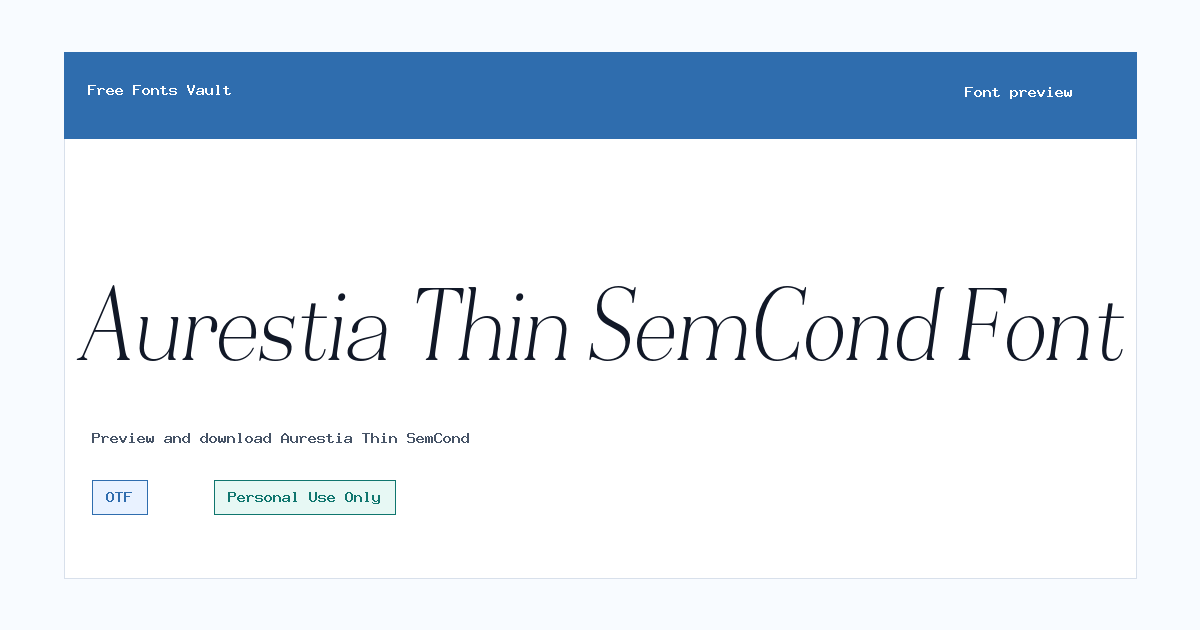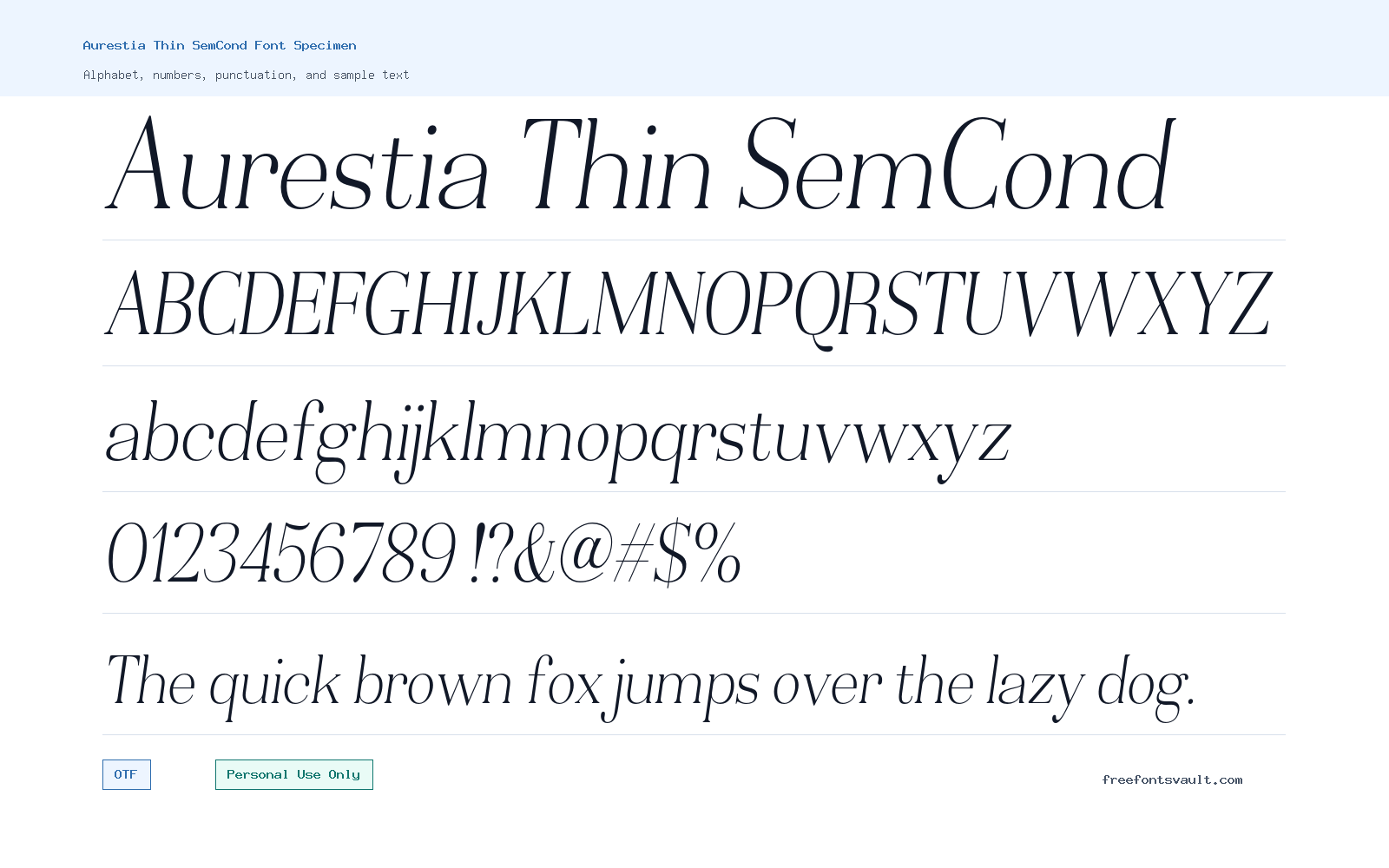
Aurestia Thin SemCond
Aurestia Thin SemCond font.
About Aurestia Thin SemCond
Aurestia Thin SemCond uses a light weight and semi-condensed proportions, giving words a tall and elegant feel without taking up too much horizontal space. The thin strokes make it better for display text than for long reading. Try it in larger sizes first, especially for names, short titles, invitation-style headings, logo drafts, packaging mockups, and social graphics where the typography is meant to set the tone quickly.
- Thin 100-weight serif styling for delicate display typography.
- Semi-condensed letterforms that help titles feel narrow and polished.
- Elegant headings, names, short quotes, and invitation-style layouts.
- Brand concept boards, packaging mockups, editorial titles, and social posts.
- Design tests where a narrow serif display font is needed for personal projects.
Aurestia Thin SemCond is credited to designer Ramadhan and foundry Mj Studio.
What is Aurestia Thin SemCond best used for?
It is best for short display text such as headings, names, invitations, packaging mockups, and personal design experiments rather than long paragraphs.